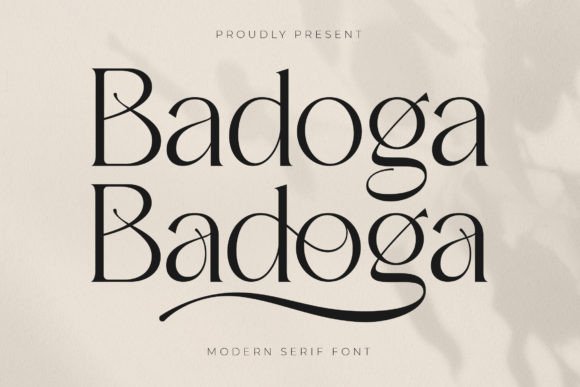
Step into the world of typography with Badoga, a distinguished serif font that exudes timeless elegance and contemporary flair. Crafted by the skilled hands at Storytype Studio, this font family embodies sophistication and versatility, making it the perfect choice for a myriad of creative endeavors.
Unleash your imagination and embark on a journey of visual splendor with Badoga. Its meticulously designed characters, adorned with sharp serifs and graceful curves, bring a touch of refinement to any project. Whether you're crafting elegant logos, designing book or movie titles, or creating fashion brands, Badoga will elevate your creations with its timeless beauty.
Immerse yourself in a world of boundless possibilities with Badoga. Its versatility knows no bounds, effortlessly adapting to a wide range of design projects. Let your creativity soar as you create stunning magazines, eye-catching clothing designs, captivating lettering, and heartfelt quotes that resonate with your audience.
Open the doors to a world of luxury and sophistication with Badoga. Its refined aesthetics and timeless elegance will transform your designs into masterpieces. Embrace the allure of Badoga and let your imagination flourish.